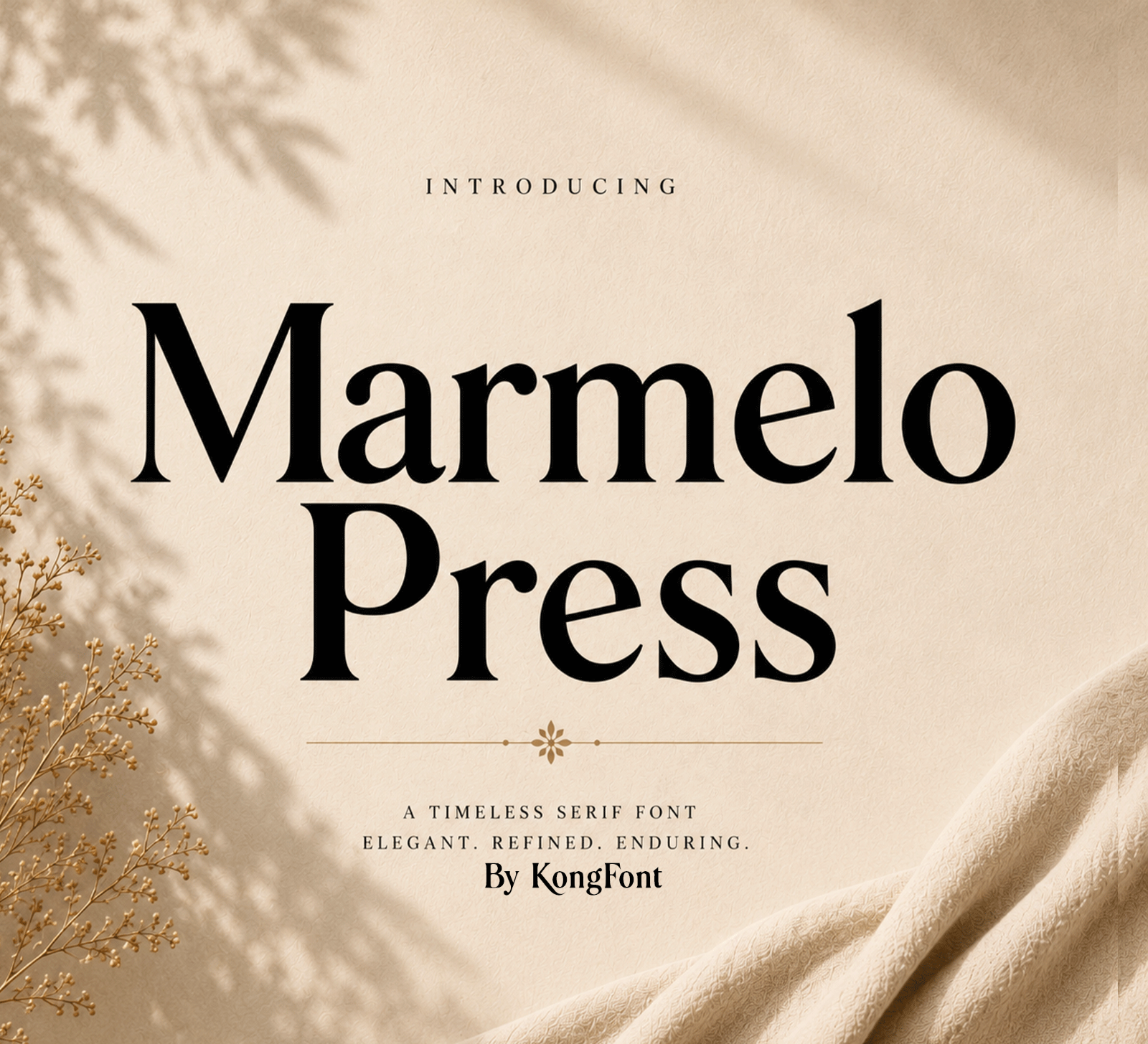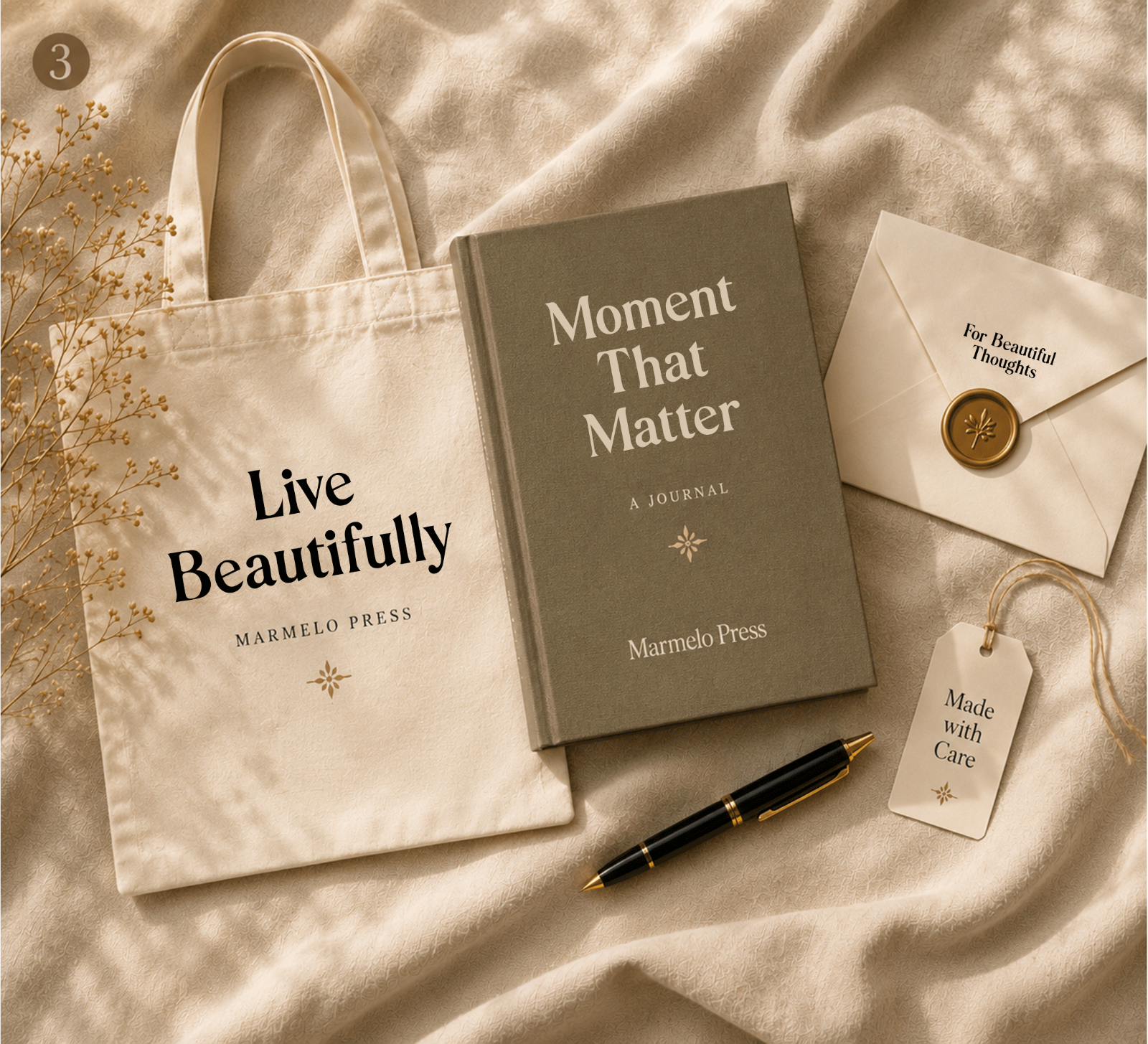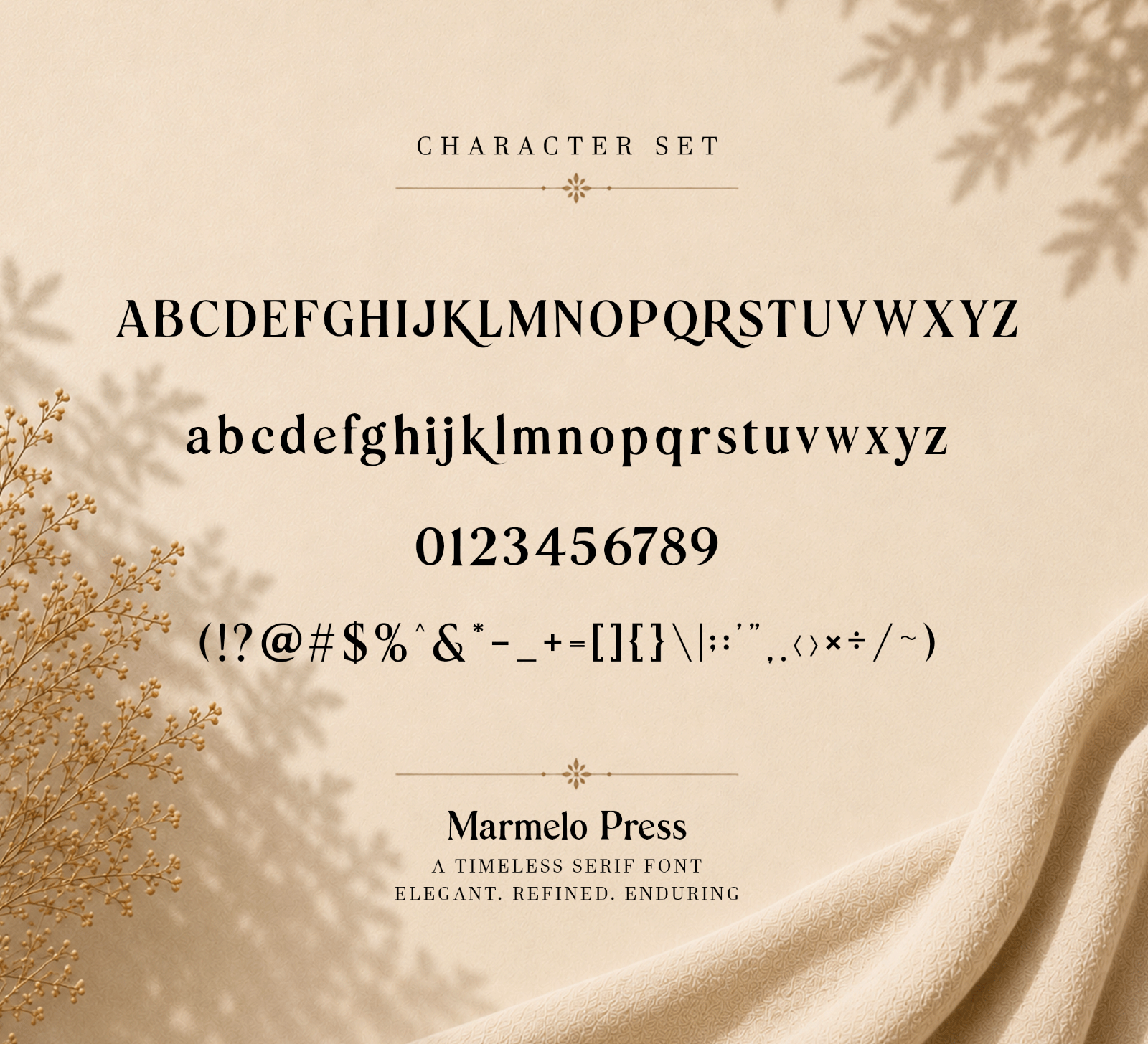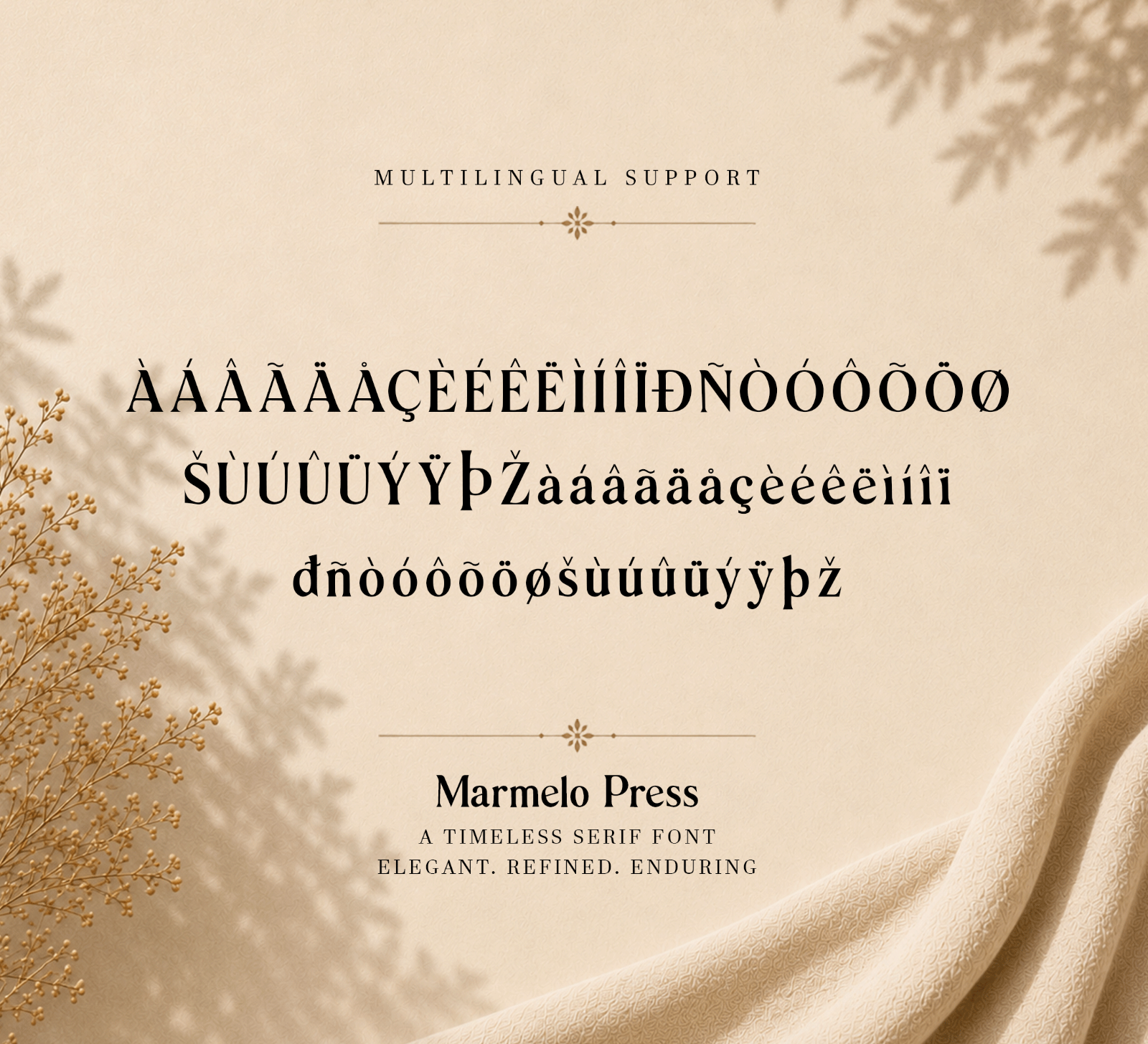
Marmelo Press is a modern luxury serif font with bold letterforms, elegant curves, and a refined contemporary style. Its classy and distinctive look makes it perfect for premium branding and stylish display typography.
• Luxury branding
• Logos
• Business cards
• Editorial titles
• Packaging
• Quotes
• Blog headers
• Creative typography